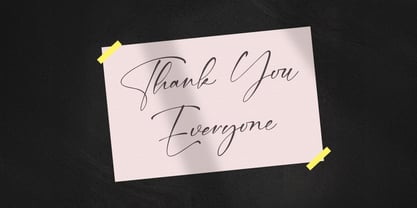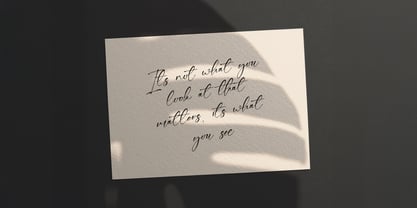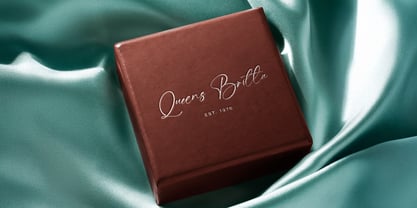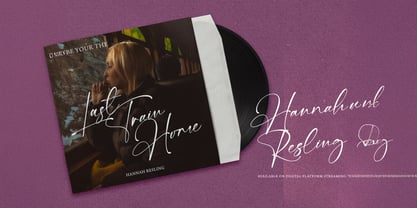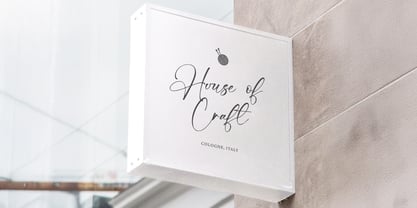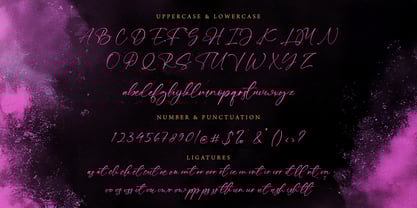
The Black Ming Font Family was designed by Virgiawan Listanto and published by Stringlabs Creative Studio. Black Ming contains 1 styles.
Black Ming is an elegant calligraphy font that blends classical charm with a bold, artistic flair. Featuring sweeping strokes and dramatic curves, this font evokes sophistication and confidence in every letterform. Perfect for high-impact projects that demand both grace and power, Black Ming adds a luxurious handwritten touch to your visual design.
Designers: Virgiawan Listanto
Publisher: Stringlabs Creative Studio
Foundry: Stringlabs Creative Studio
Design Owner: Stringlabs Creative Studio
Black Ming